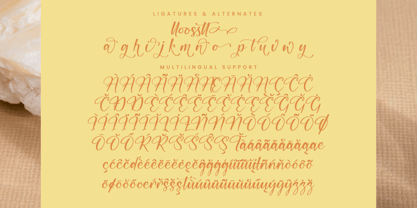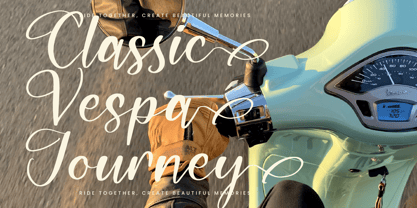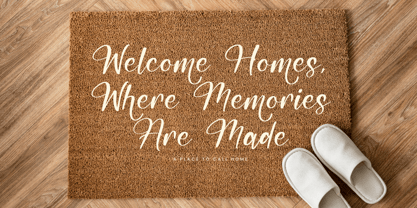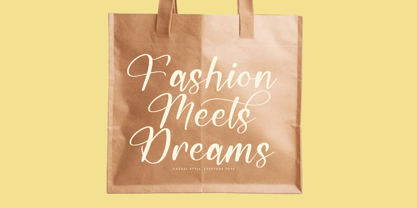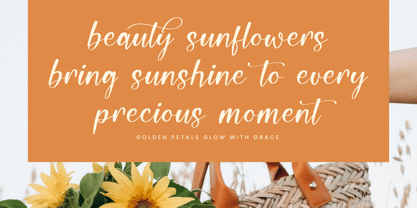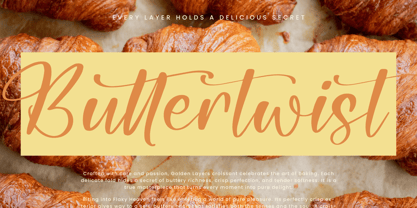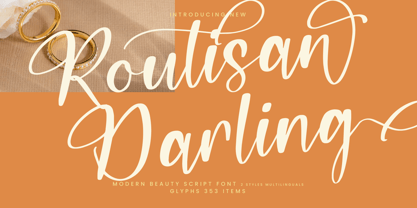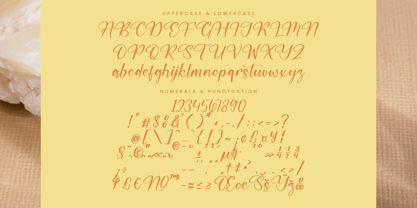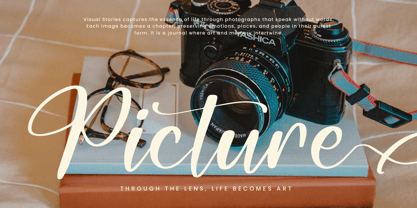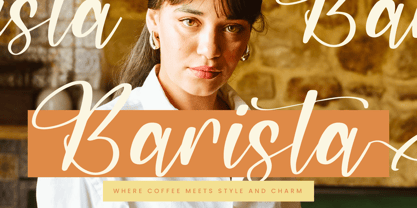
Routisan Darling
by Integritype
The Routisan Darling Font Family was designed by Dimas Alif Maulana and published by Integritype. Routisan Darling contains 2 styles and family package options. More about this family
Routisan Darling is a stunning modern beauty script font crafted by Integritype Studio. This versatile typeface is ideal for a wide range of applications, including logos, branding projects, homeware designs, product packaging, and more. Whether you're designing mugs, quotes, posters, shopping bags, t-shirts, book covers, business cards, invitation cards, greeting cards, labels, or photography watermarks, Routisan Darling adds an elegant touch to all your luxury projects. Its premium aesthetic makes it perfect for special events and any creative endeavor that demands sophistication and style.
Designers: Dimas Alif Maulana
Foundry: Integritype